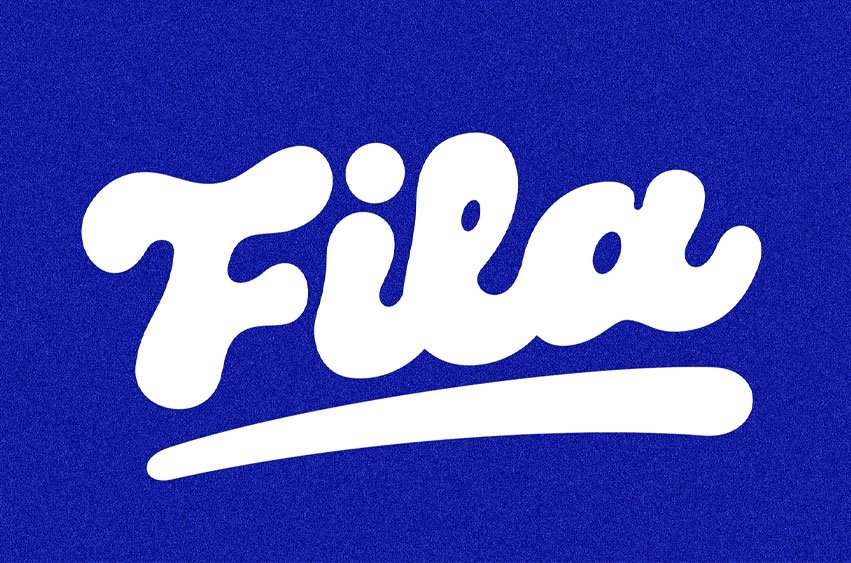
Fila Font
Fila Font is a new rounded Bold on a script typefaces It generates a lot more fun, more trendy and Beauty. perfect for crafting, branding, Logo, invitation, stationery, wedding designs, social media posts, advertisements, product packaging, product designs, label, Posters, photography, special events, or anything.
Font Features :
• Uppercase
• Lowercase
• numeric & Multilingual support
• Ligatures
• Stylistic Alternates with Ss01, Ss02, Ss03 ,Ss04, Ss05 and Ss06